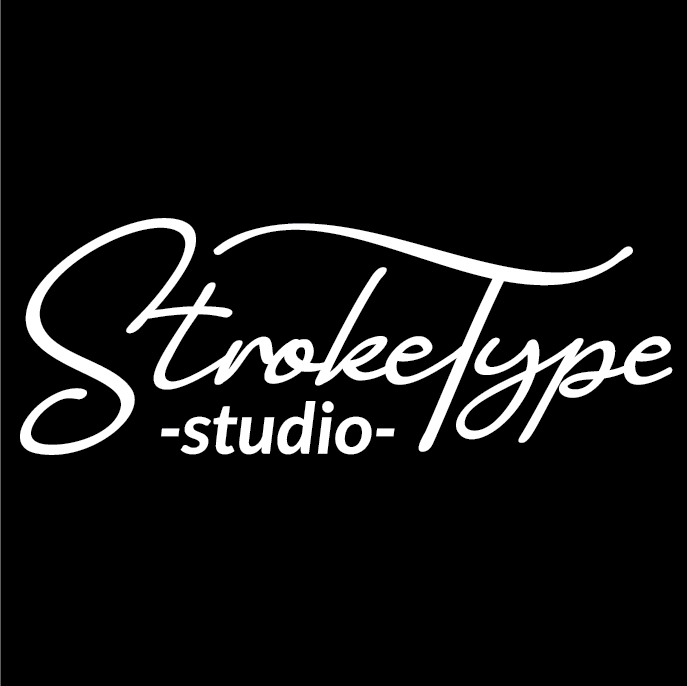
stroketype
Indonesia
Hi! I'm Abdullah Daud, from Stroketype Srudio, type designer and font creator from Indonesia. We make stunning and cool design typefaces which are suitable for any project purposes for business. We mainly design script, handwritten and calligraphy based typeface, but we never stop practicing and looking for more type design references. We really enjoy working on fonts, we hope you enjoy our works, we hope our fonts could be share in your website. so the fonts could widely spread and used by other designers.